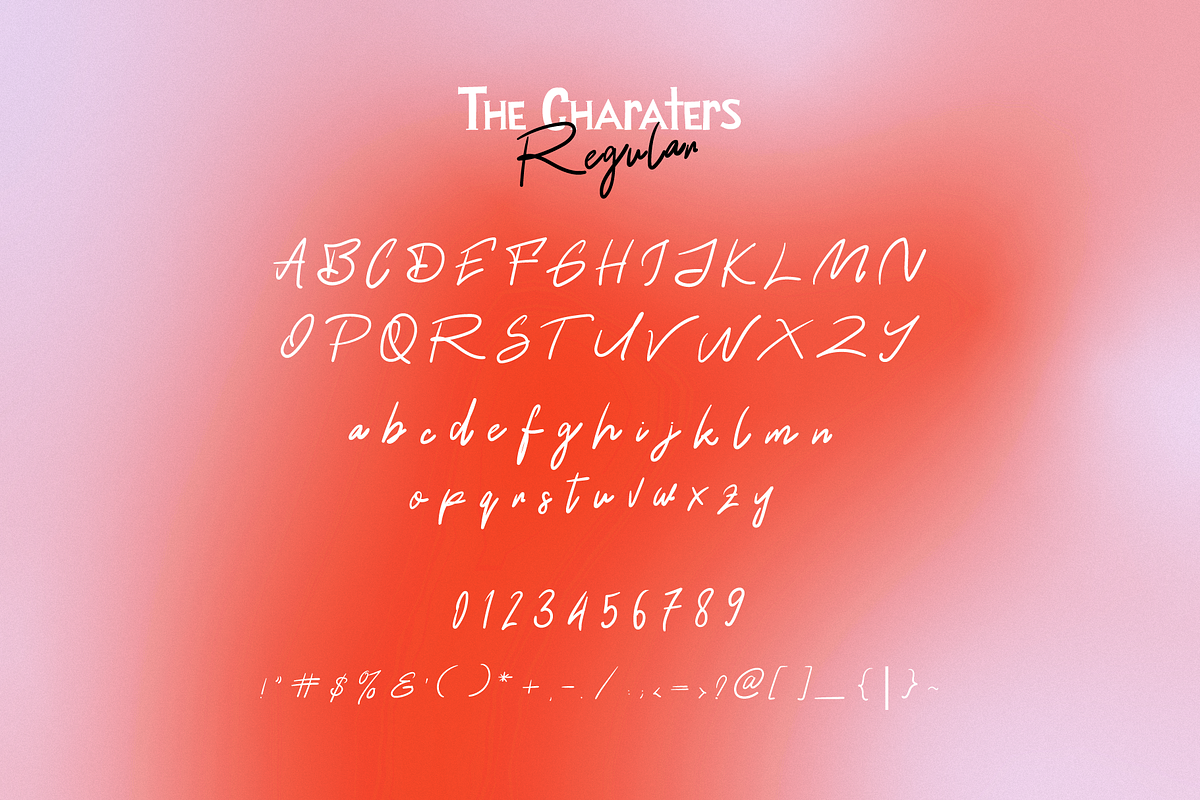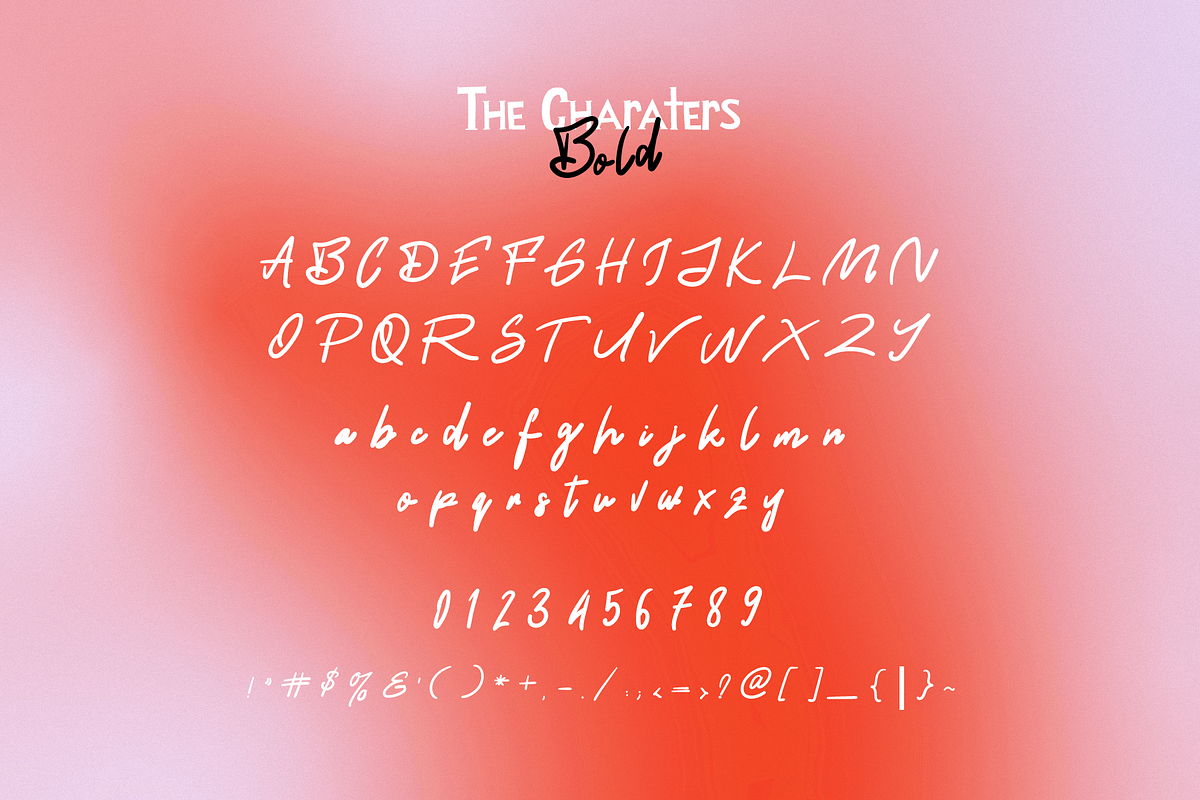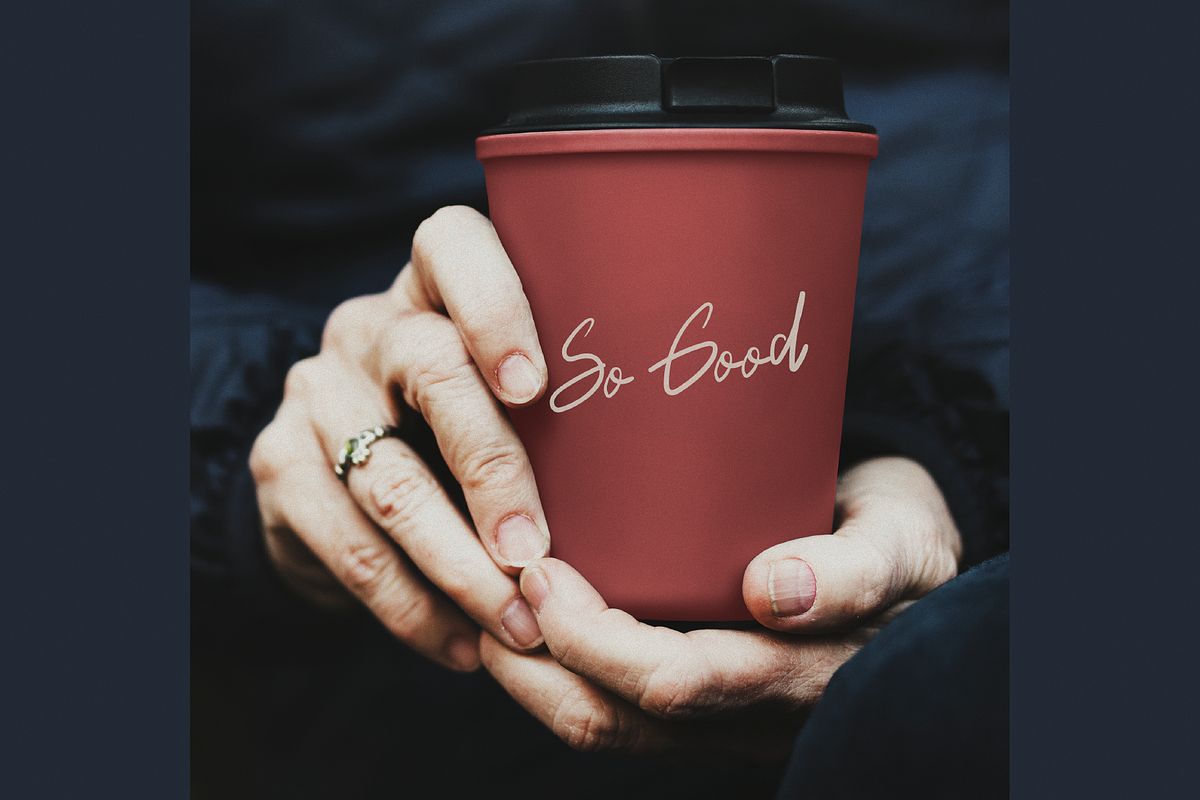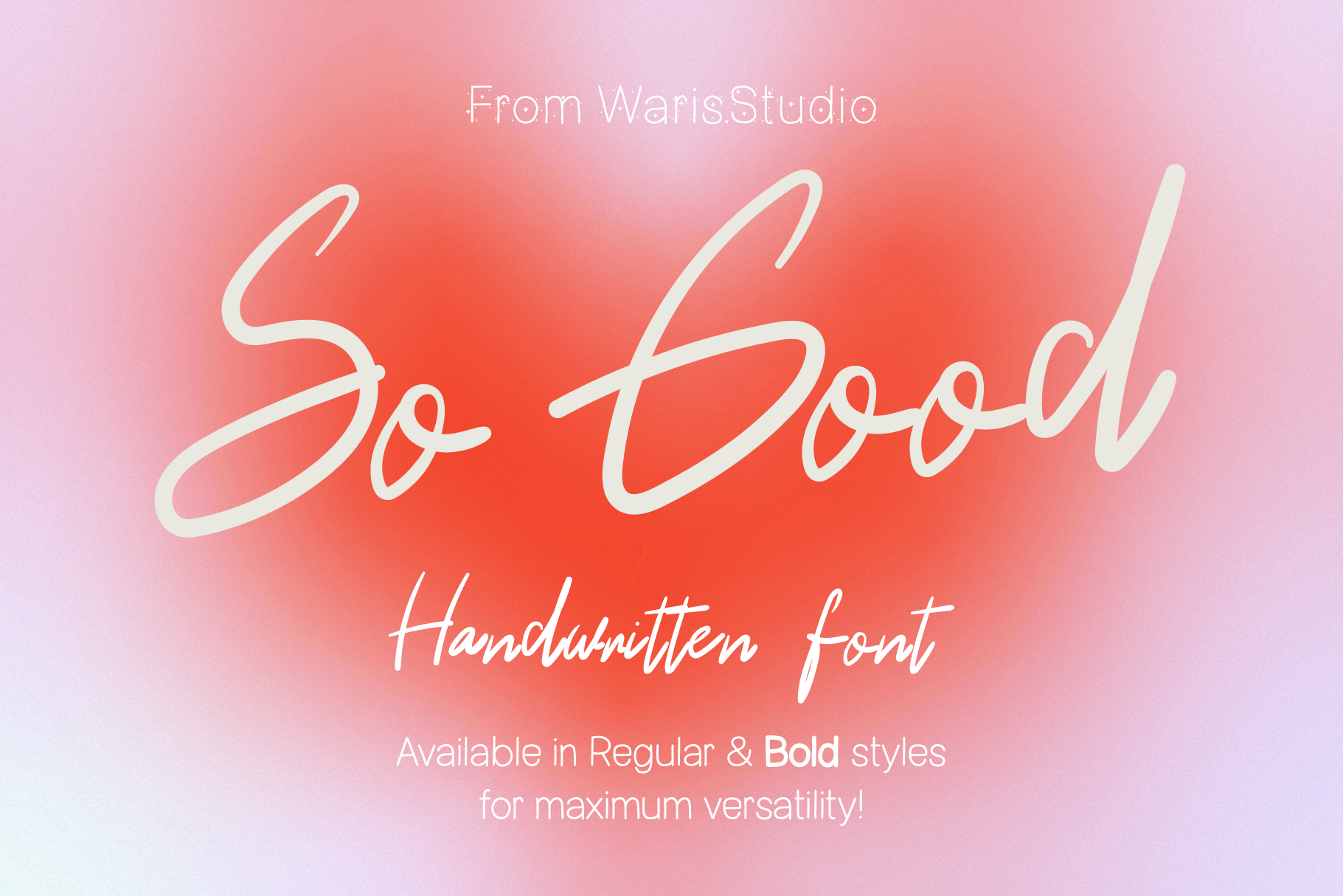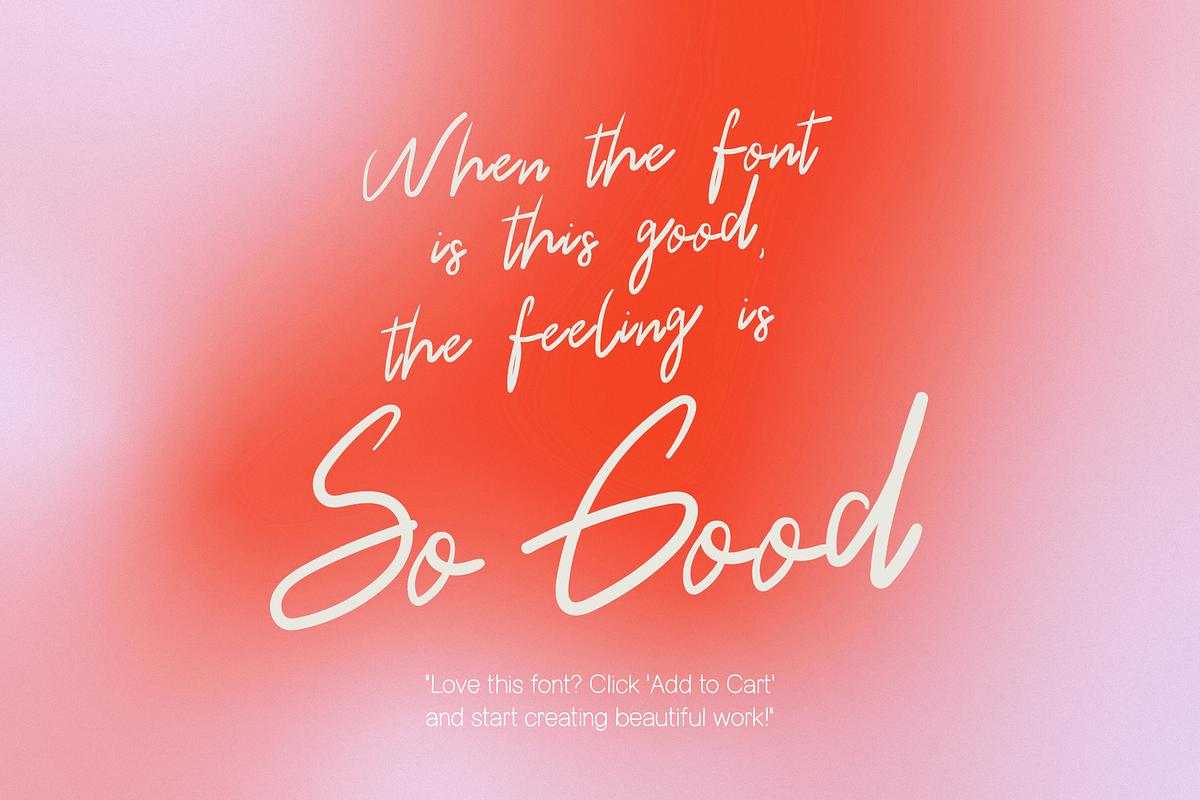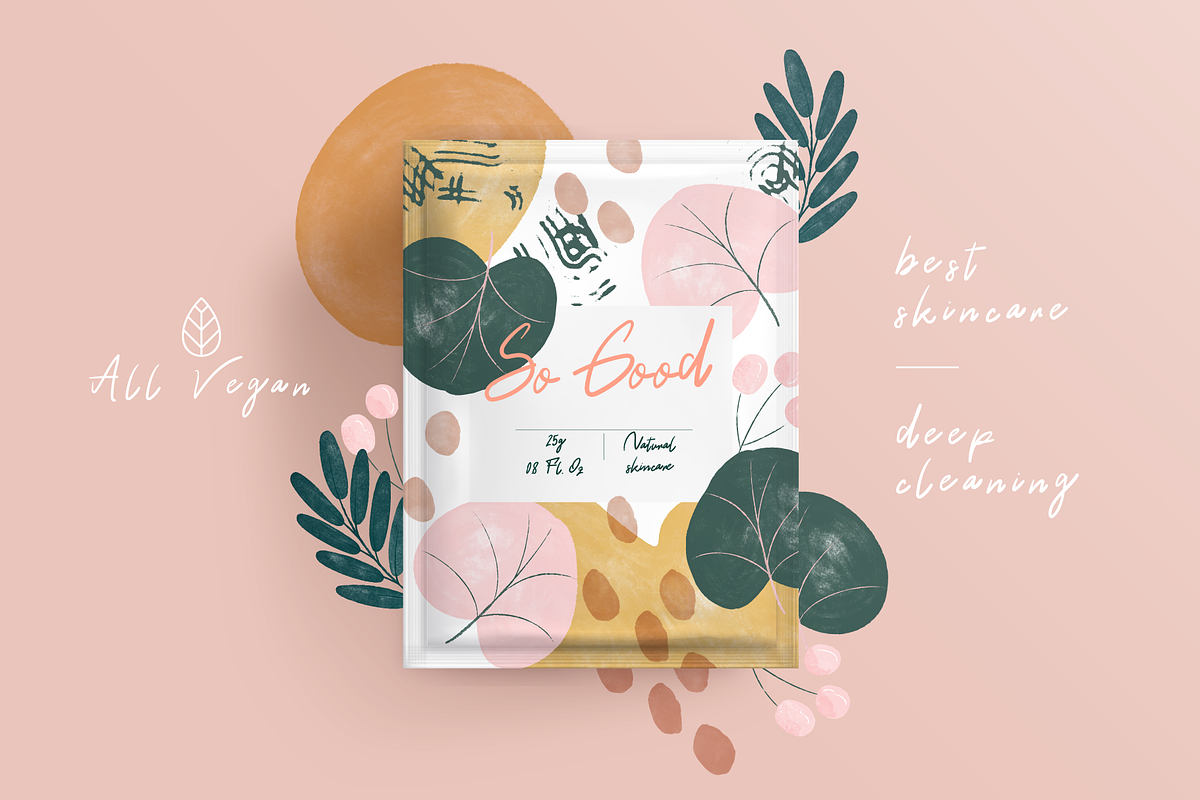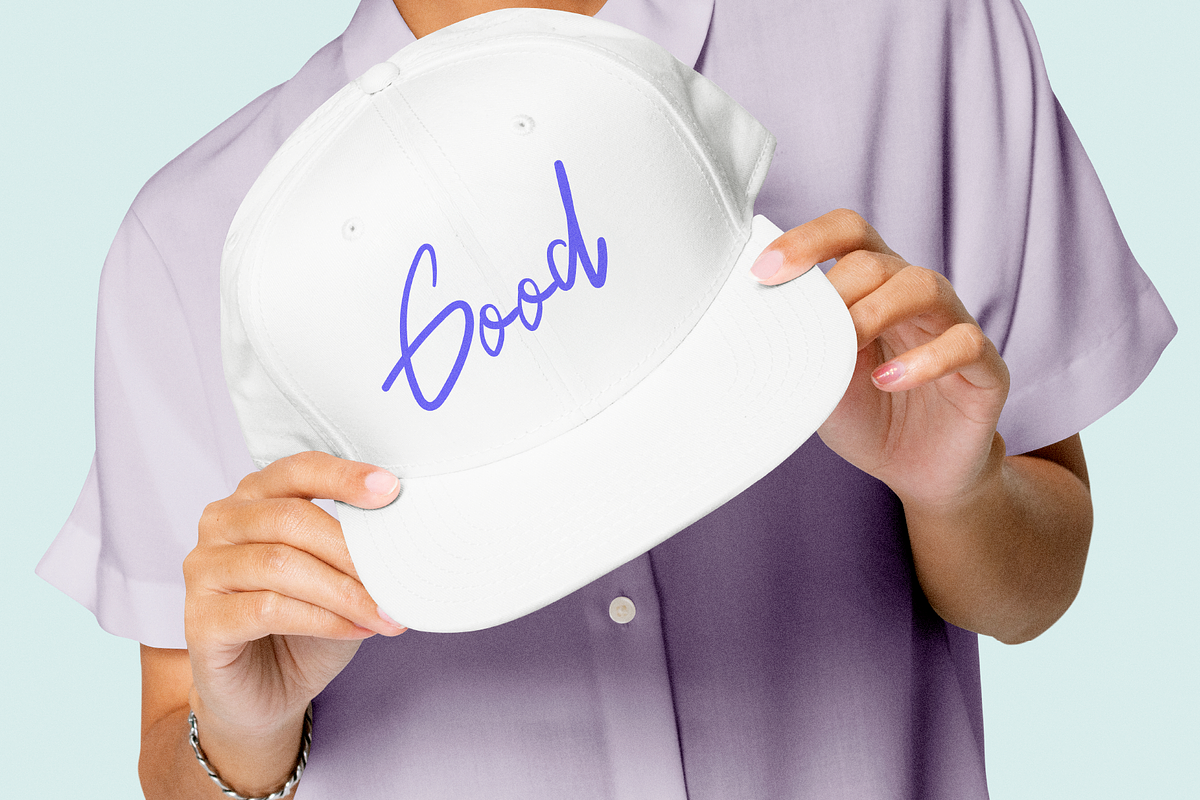
So Good Handwritten Font Duo
Introducing "So Good" – Your New Go-To Handwritten Font! ✨ This versatile script font offers the authentic charm of a handwritten masterpiece, perfect for adding a personal and elegant touch to all your creative projects. With both Regular and Bold styles included, you get maximum flexibility to create stunning designs that truly stand out!
What makes "So Good" special? +Authentic Handwritten Look: Designed to mimic natural handwriting, giving your projects a genuine, personal touch.
+Two Versatile Styles: Get both Regular and a striking Bold weight in one package, allowing for diverse applications and visual impact.
+Smooth & Legible: Beautifully crafted to be clear and easy to read, ensuring your message comes across perfectly.
+Extensive Character Set: Includes a full range of uppercase, lowercase, numbers, punctuation, and ligatures for endless design possibilities.
- Branding & Logos: Create unique, memorable brand identities.
- Wedding Invitations & Stationery: Add an elegant, personal touch to your special day.
- Social Media Graphics: Make your posts pop with engaging typography.
- T-Shirt Designs & Merch: Stand out with distinctive script.
- Digital Planners & Journals: Enhance your digital organization.
- Craft Projects (Cricut & Silhouette friendly!): Perfect for vinyl decals, greeting cards, and more.
- Procreate & Digital Art: Elevate your digital illustrations.